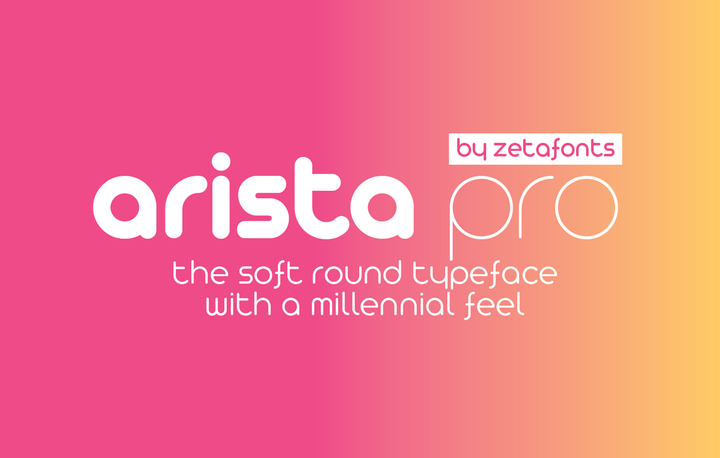
Arista Pro Font Family
That’s very wonderful! That was my initial impression of this typeface, you can choose this font for your design project. Introducing Arista Pro Font Family! Arista Pro designed by Francesco Canovaro, and was introduced by Zetafonts. Arista Pro is the definitive version of the successful Arista typeface, first released in 2007 as Arista Z and then reissued as Arista 2.0 in 2010. The pro version of Arista features the geometric and soft approach of the original typeface but comes in a full range of weights and two alternate versions (Arista Pro Regular and Arista Pro alternate version).